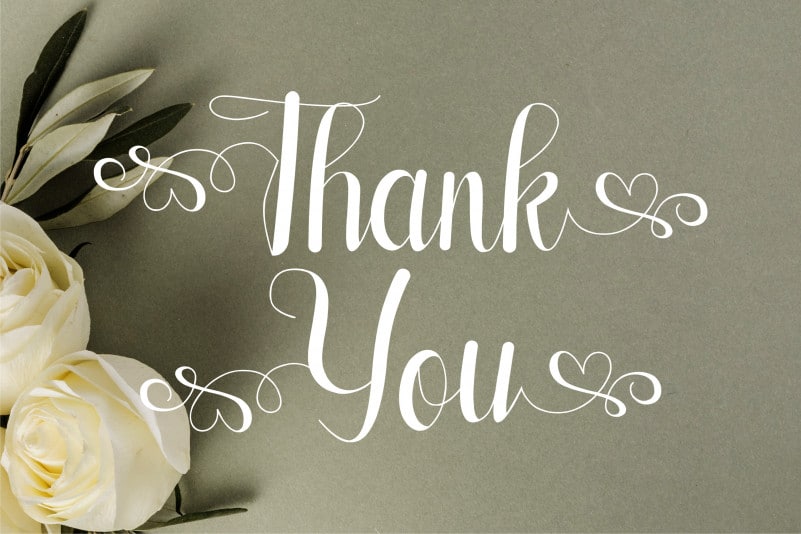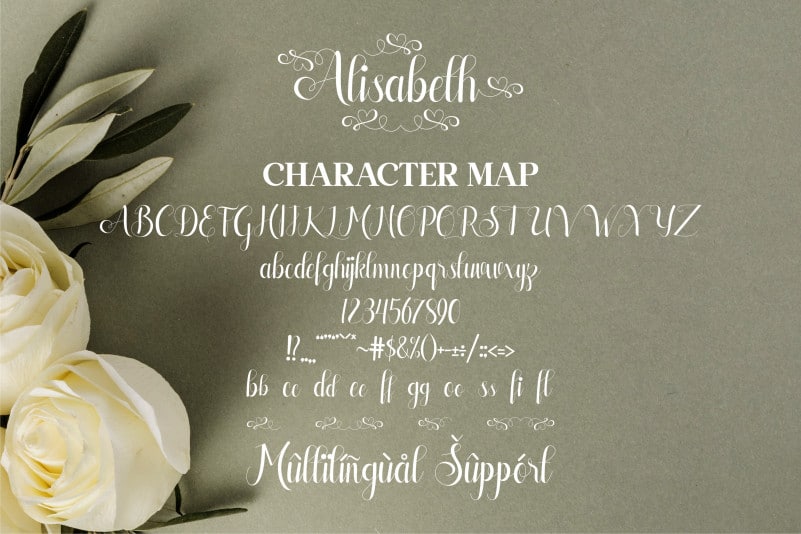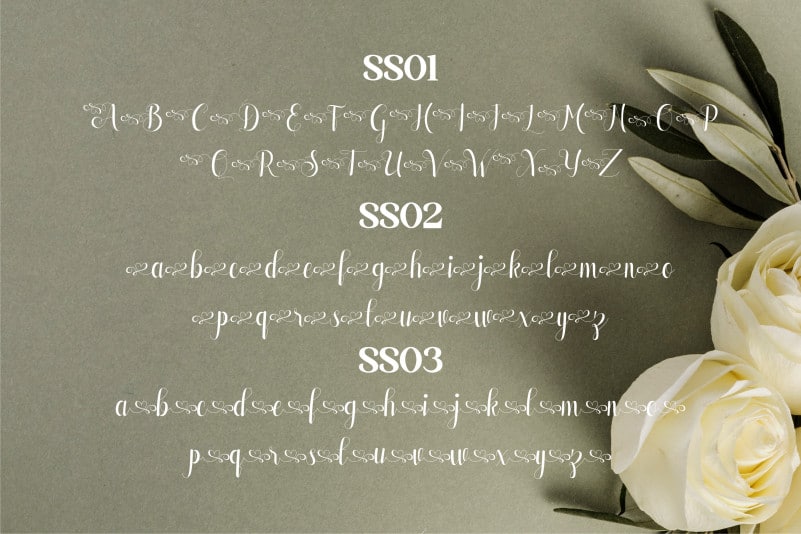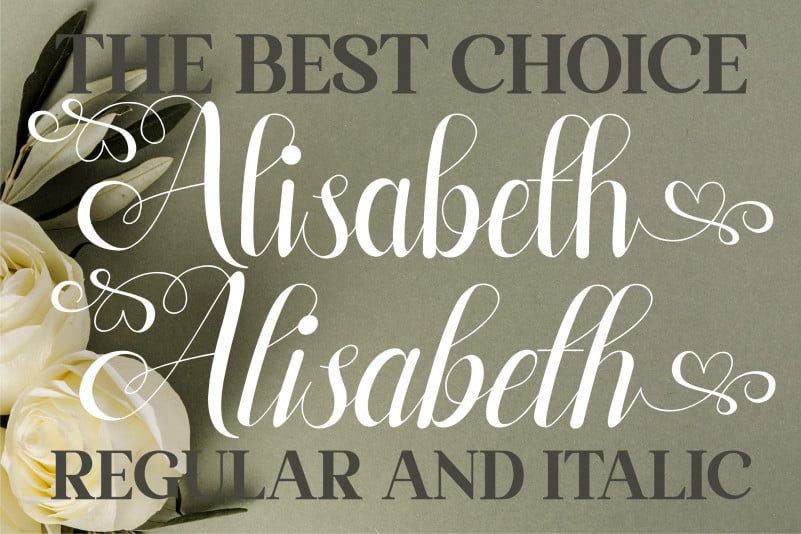
Alisabeth Script Font
Alisabeth Script Font – Beautiful Script Font, from Letterena, is a romantic calligraphy font, suitable for any projects such as: logos, branding projects, homeware designs, product packaging, mugs, quotes, posters, shopping bags, t-shirts, book covers, name card, invitation cards, greeting cards, label, photography, watermark, special events, and all your other lovely projects that need a beautiful Script taste.